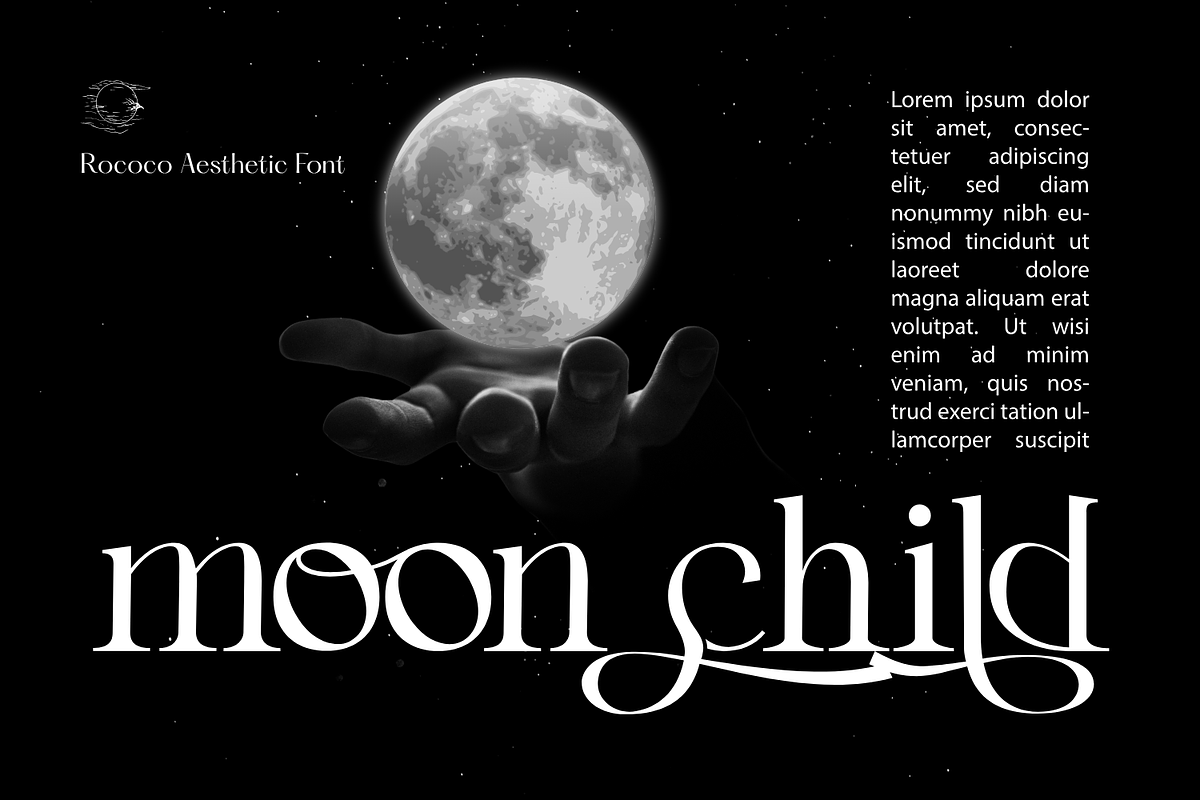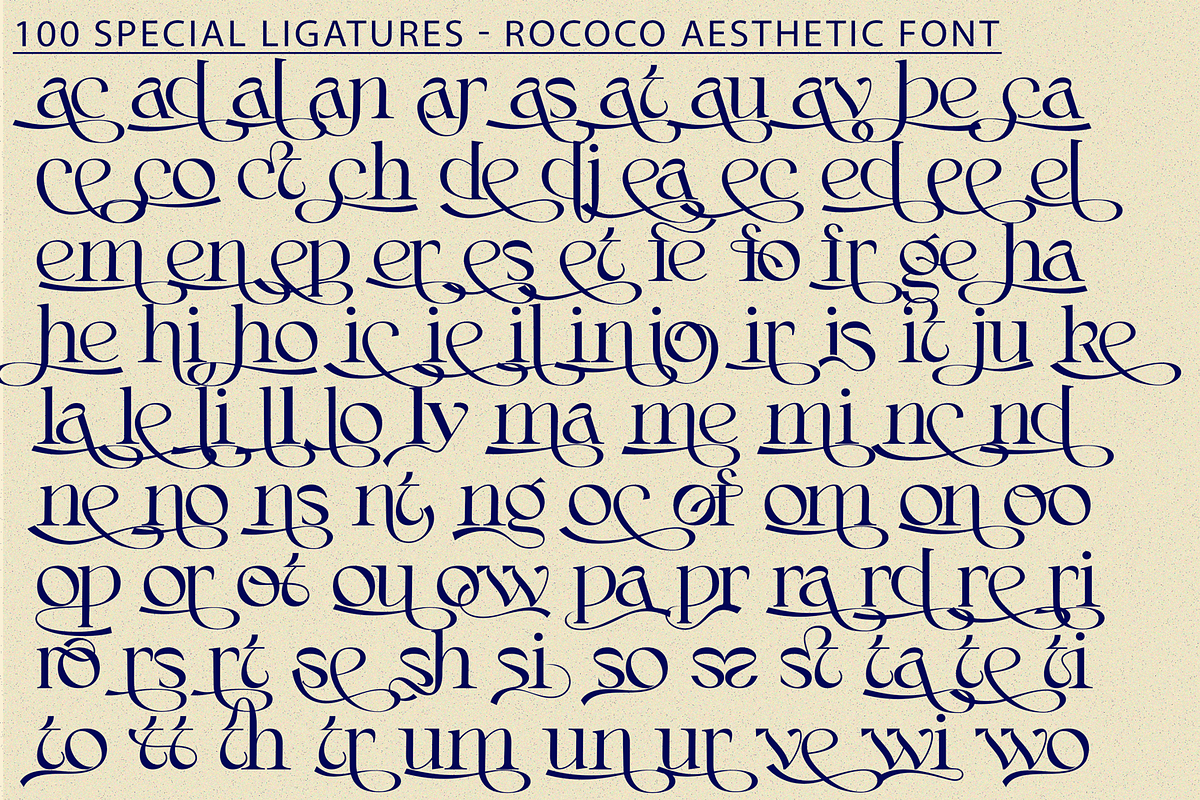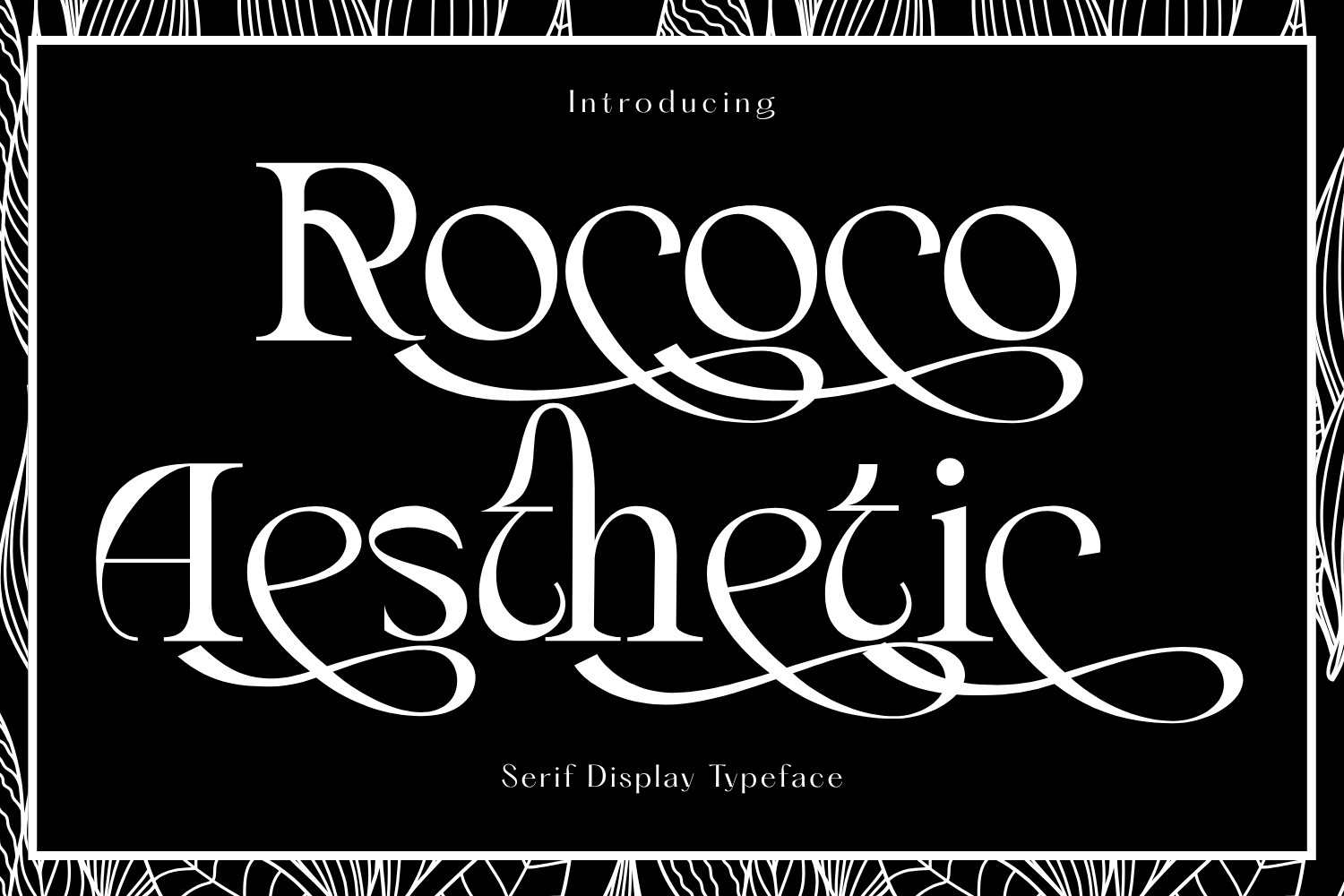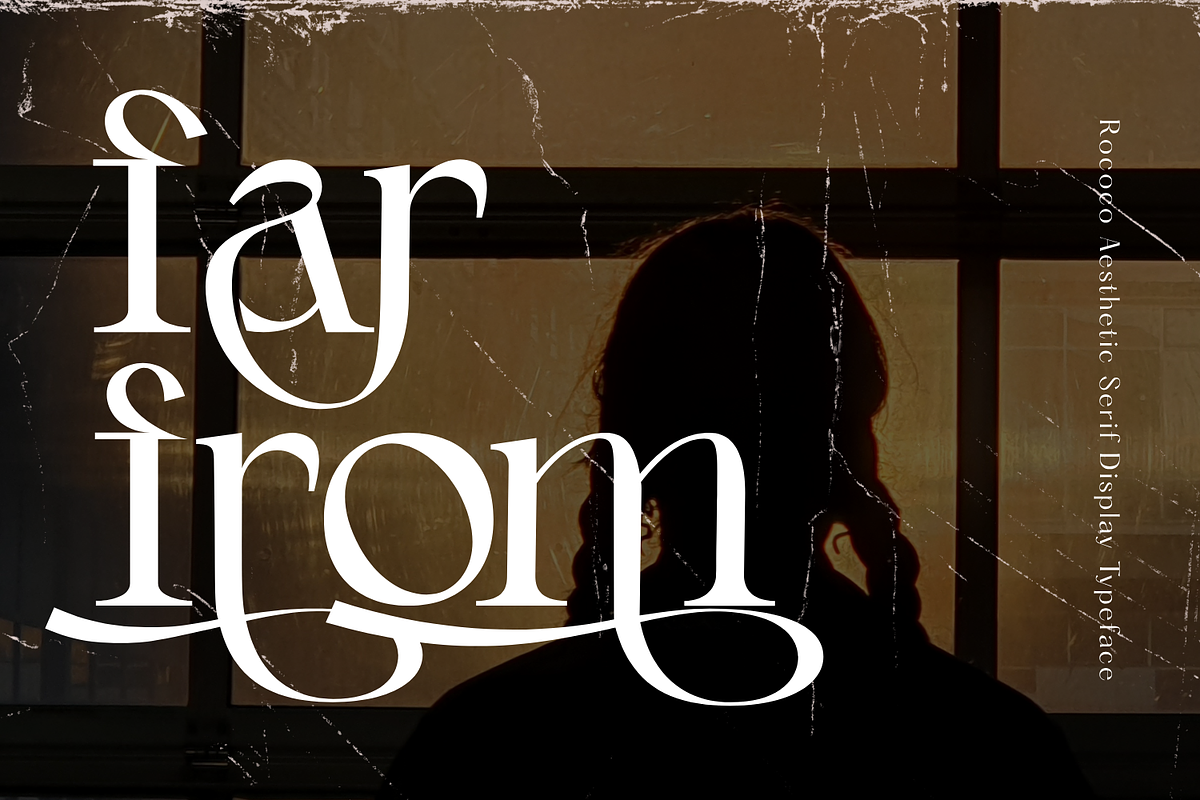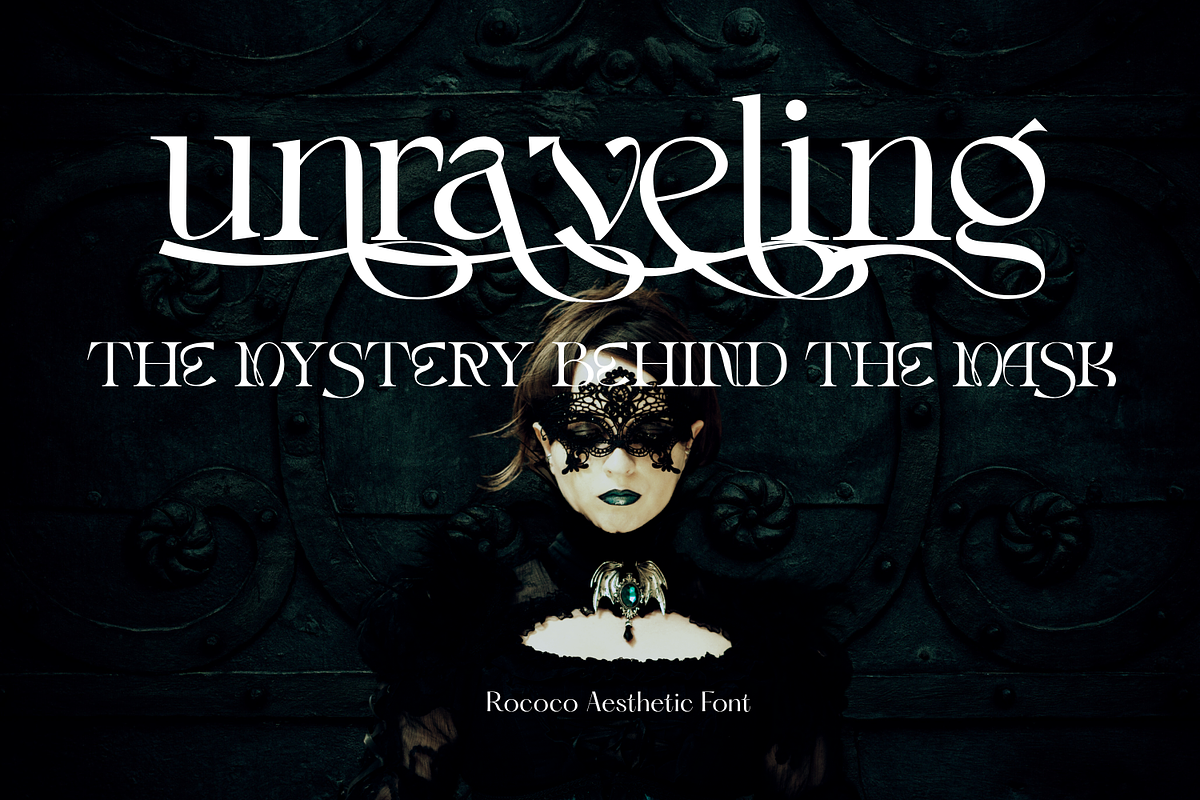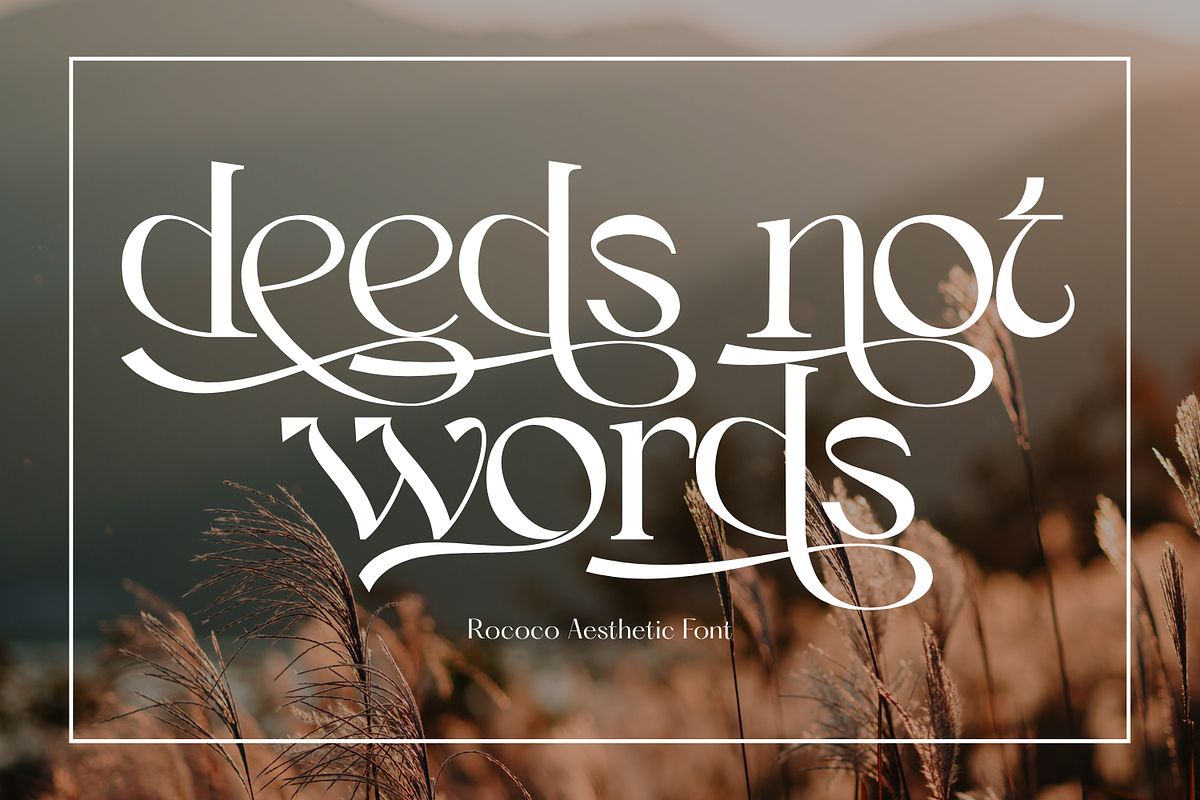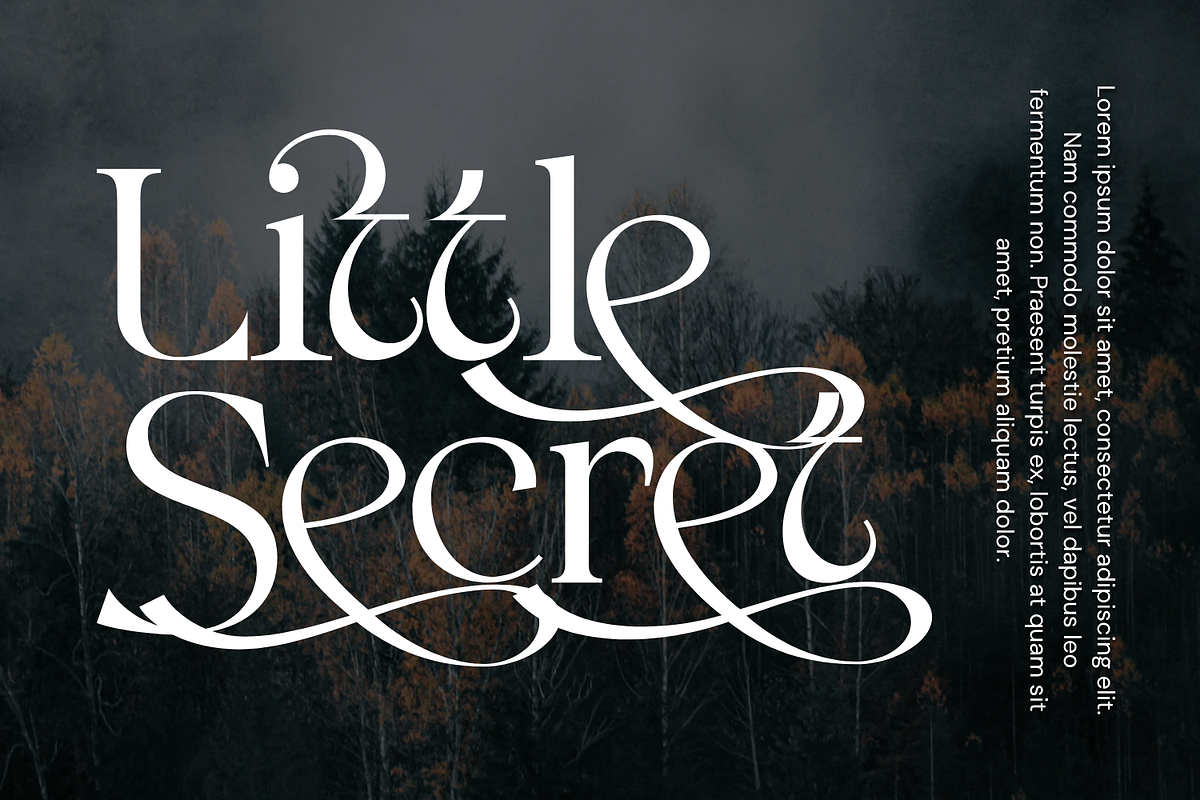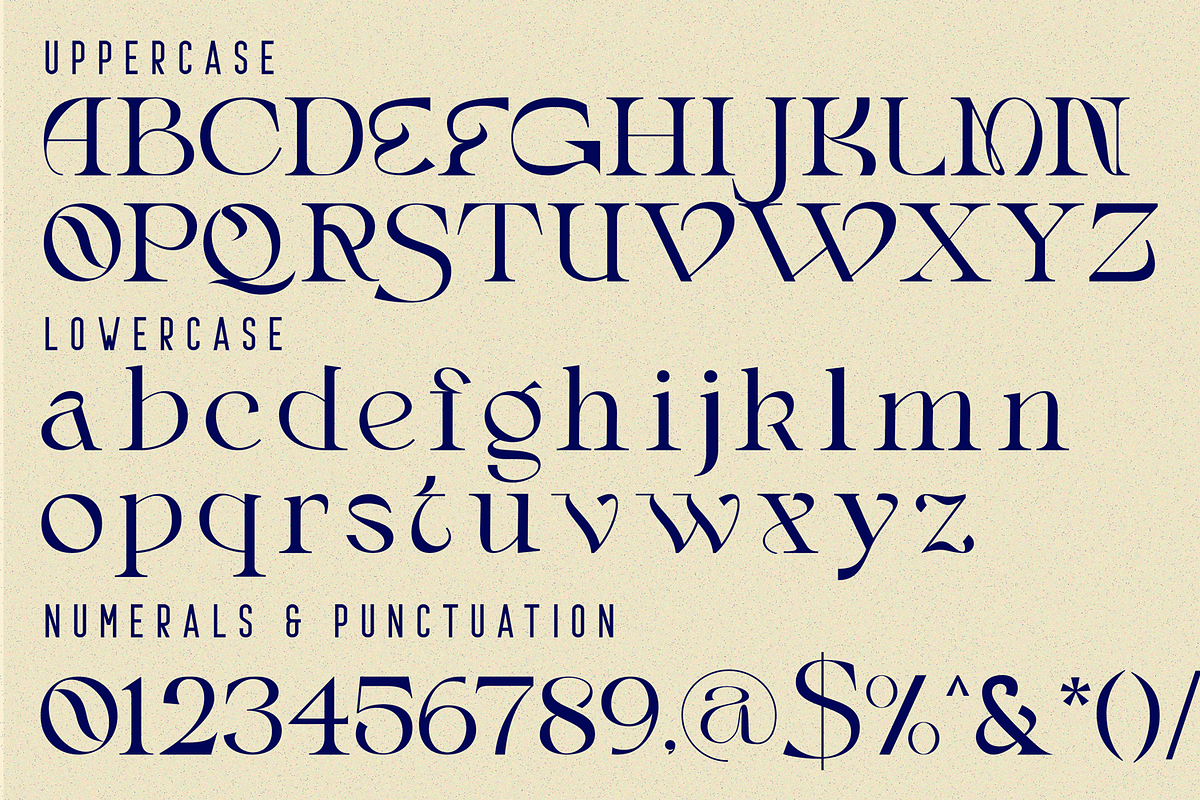
Rococo Aesthetic - Elegant Font
Rococo Aesthetic - Elegant Font is an exquisite high-contrast serif font inspired by the ornate charm of Rococo and Baroque aesthetics. Characterized by its thin and thick strokes, refined serifs, and luxurious swirling swashes, this font evokes the elegance of classical European design with a modern sensibility. Each glyph is crafted with graceful curves and dramatic flourishes, making it a perfect choice for branding, editorial headlines, luxury packaging, invitations, and artistic logos.
🔤 Font Features:
- Uppercase and Lowercase Letters
- Around 100 Lavish Ligatures and Alternates
- Multilingual Support with Accented Characters
- Elegant Curves, Thin Serifs & Swash-Endings
- Perfect for Rococo, Victorian, or Fashion Themes
🔤 About 100 ligatures combined with Stylistic Alternates Font:
ac ad al an ar as at au av be ca ce ch co ct de di ea ec ed ee el em en ep er es et fe fo fr ge ha he hi ho ie ic il in io ir is it ju ke la le li ll lo ly ma me mi nc nd ne ng no nt ns oc of om on oo op or ot ou ow pa pr ra rd re ri ro rs rt se sh si so ss st ta te th ti to tr tt um un ur ve wi wo